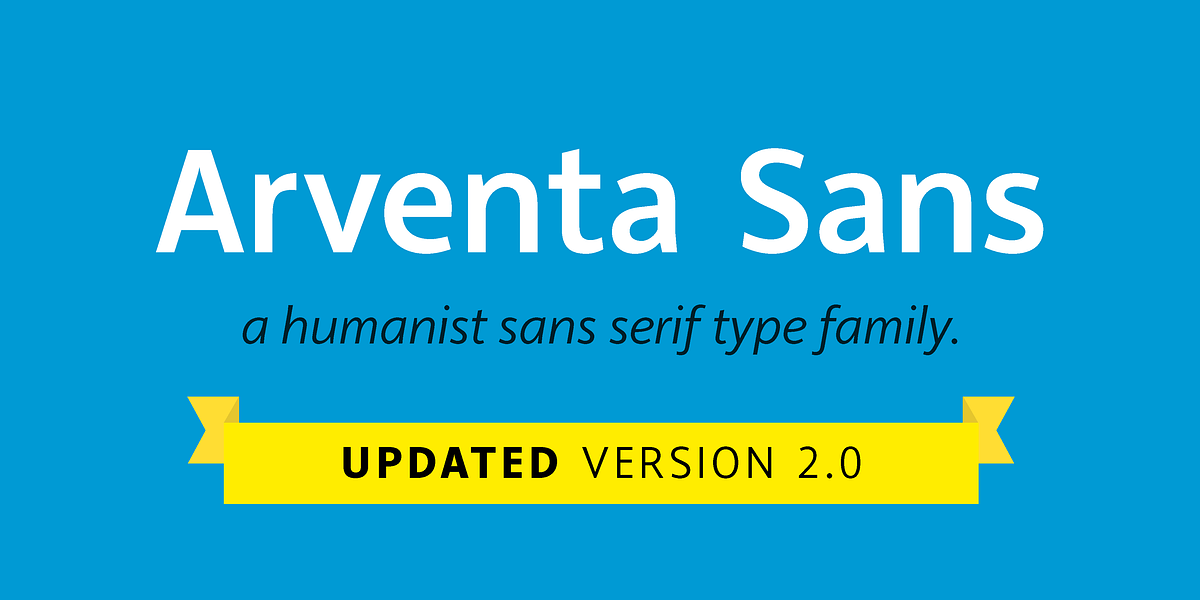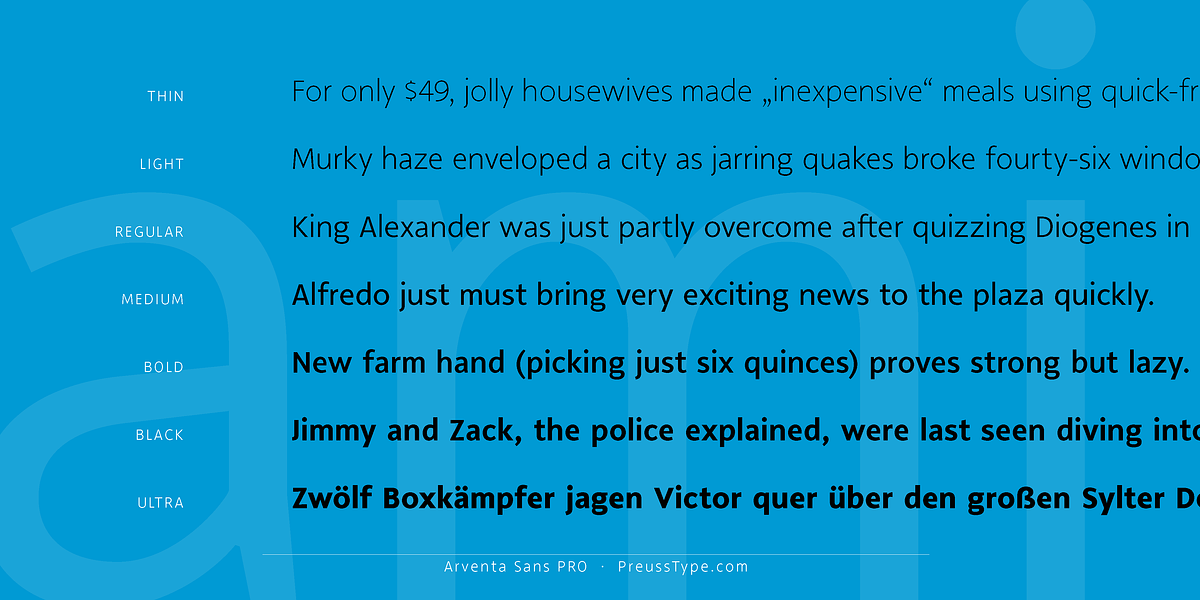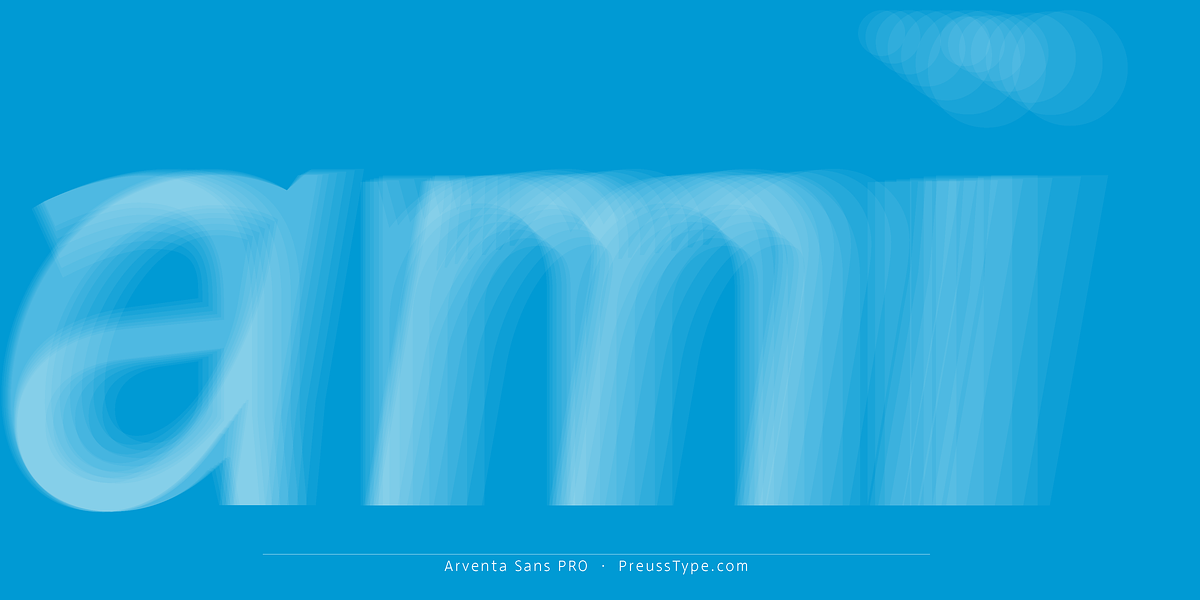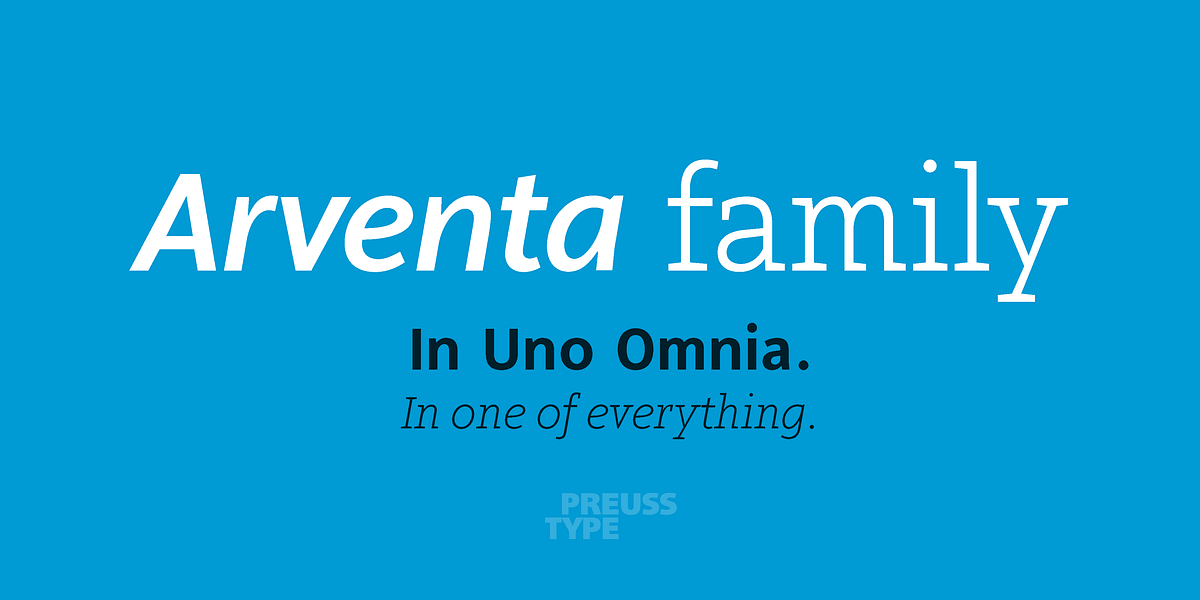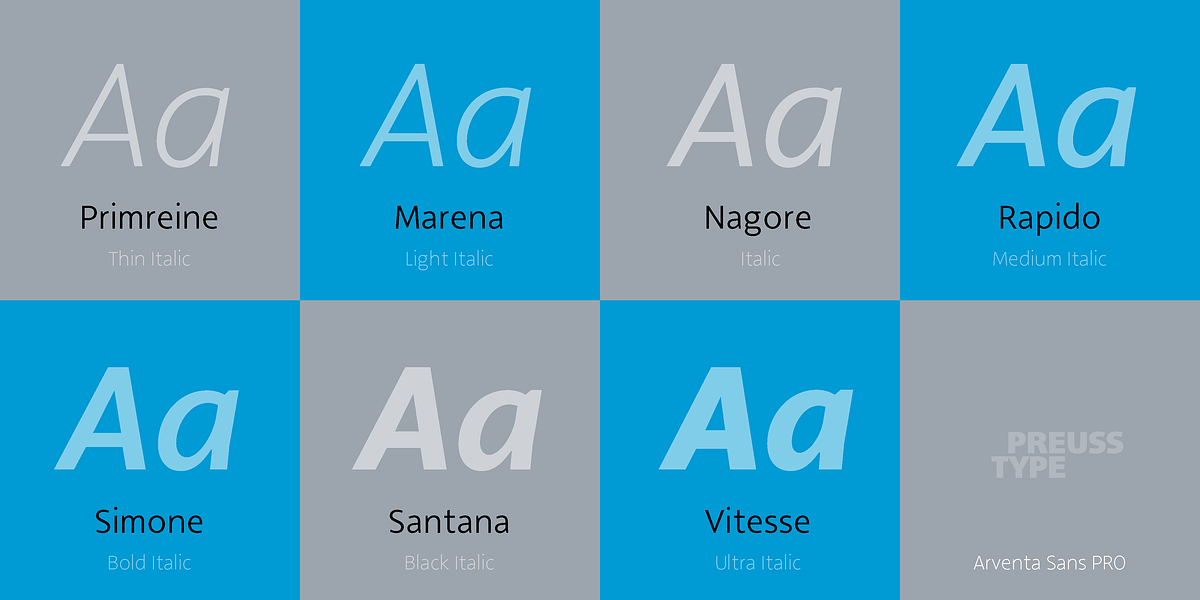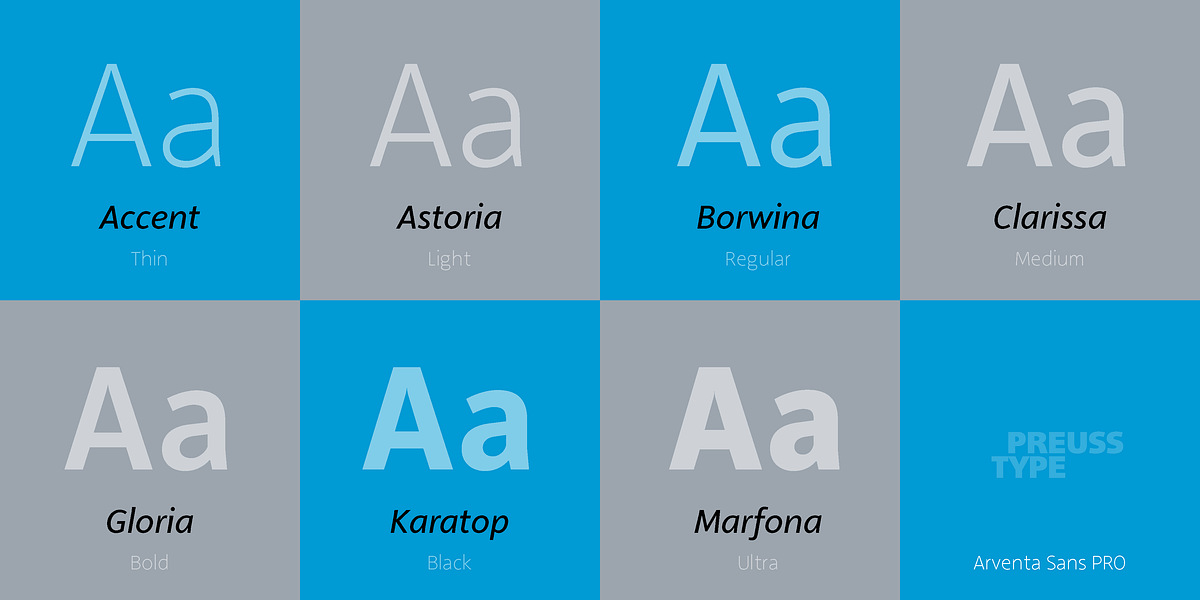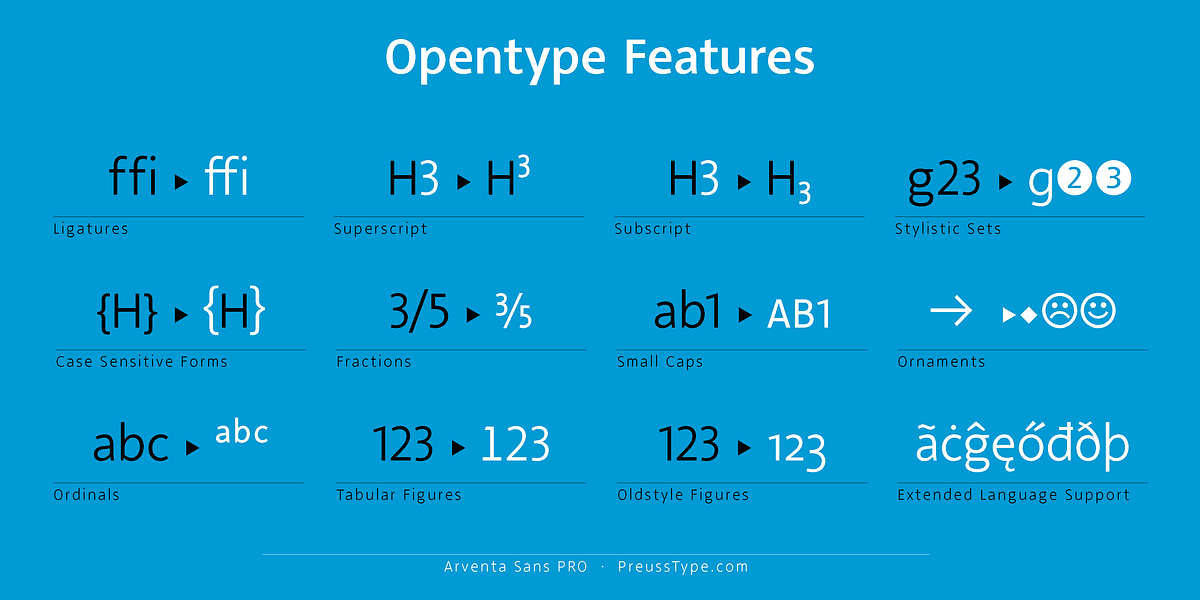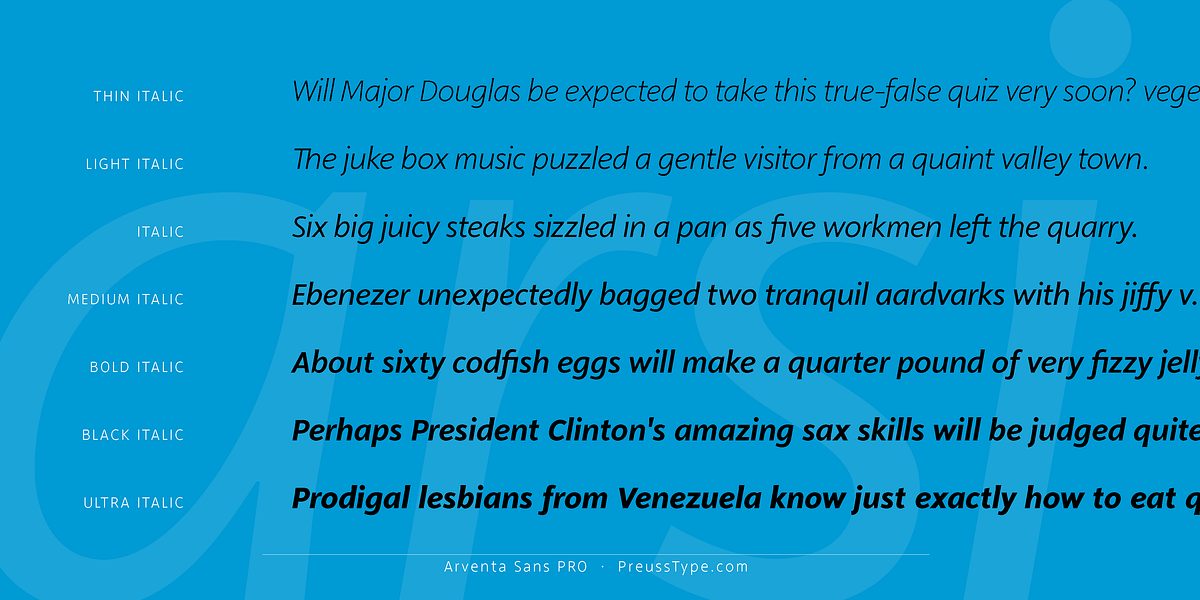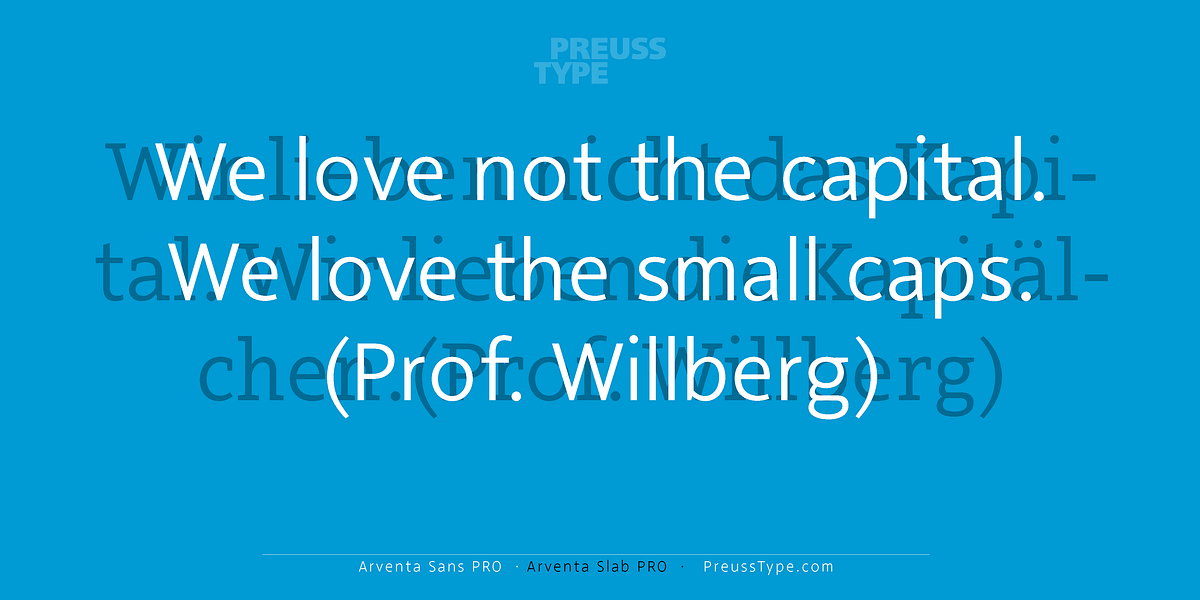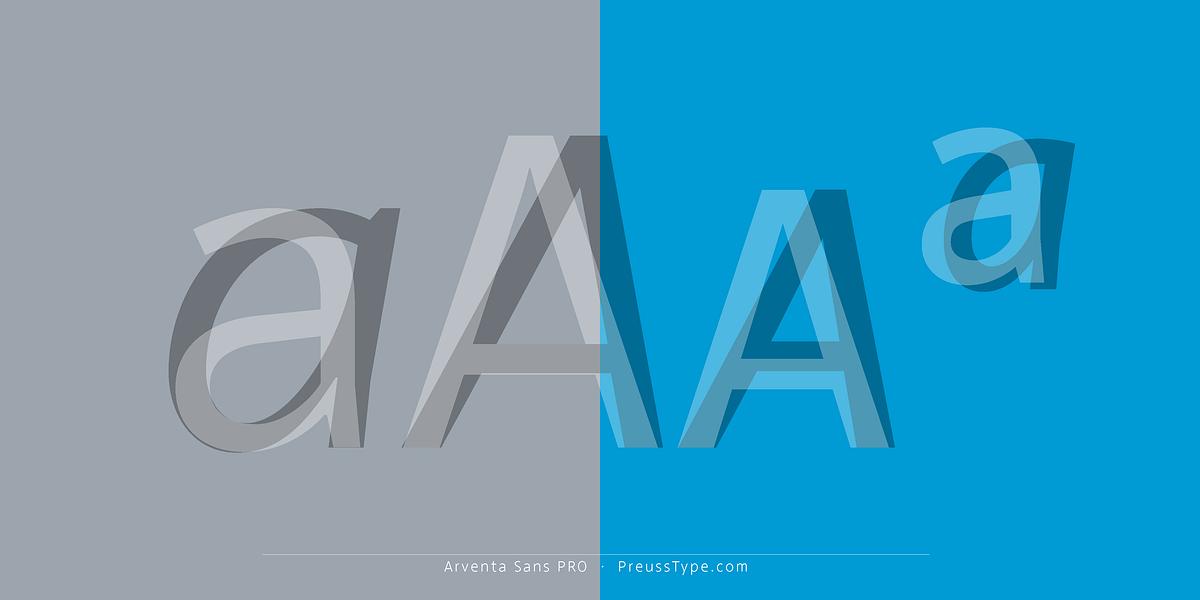
Arventa Sans PRO
The Arventa PRO super-family is a versatile typeface family consisting of both sans serif and slab serif variants. Designed for optimal legibility at text sizes, the humanist sans serif style is neither strictly geometric nor purely humanistic in its construction. 7 weights are offered, including italics, along with a comprehensive set of characters, figures, symbols and ligatures.